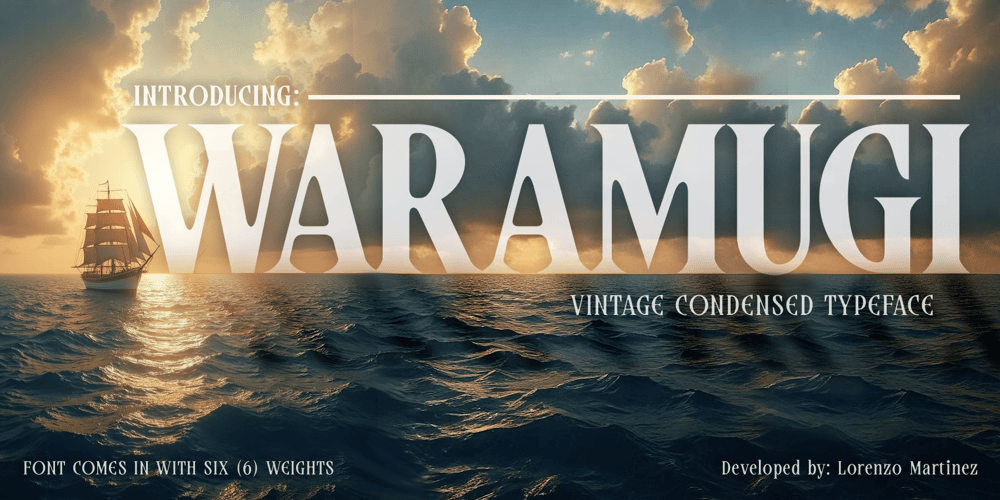
Waramugi
Waramugi font
Waramugi Font Family was designed by Lorenzo Gabriel Martinez and published by Lurinzu Studios. Waramugi contains 6 styles and family package options. “Waramugi” is a vintage condensed typeface with a mixture of “typewriter vibes” that is inspired by the legendary anime called “One Piece” Waramugi is developed to function in all kinds of media. The subtleness of its character, gives way to the versatility of this typeface to be used as both a workhorse and a display typeface.